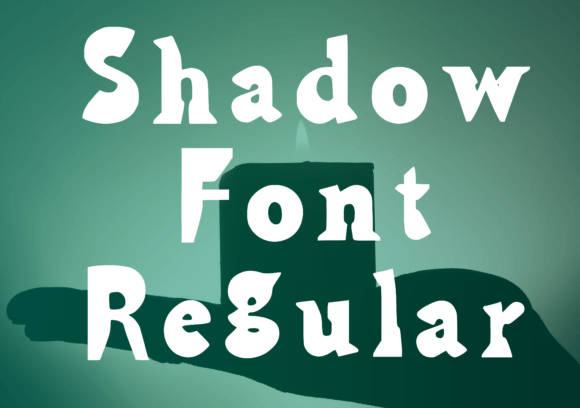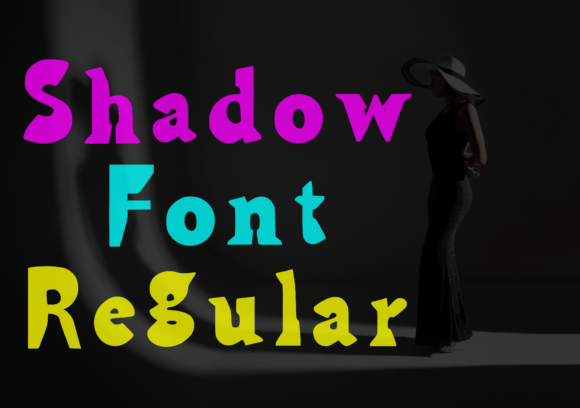
Shadow Font
SHADOW FONT SPECIMEN
Shadow is a unique and quirky slab serif font, easy to read on any screen, irrespective of its size. Shadow is a great choice for your project documents such as business cards, posters, journals, etc.